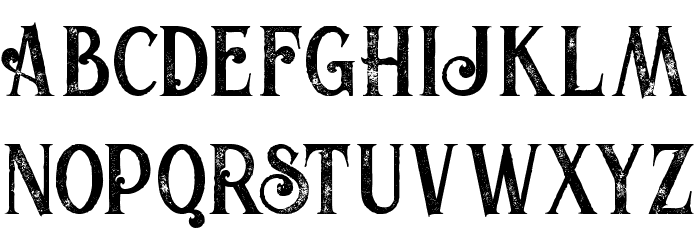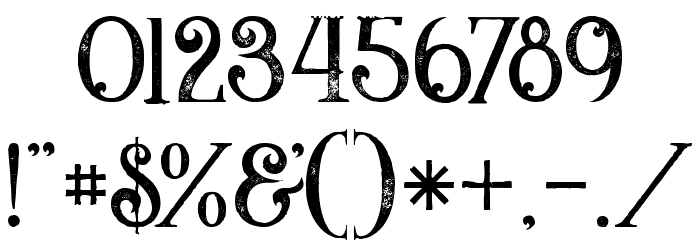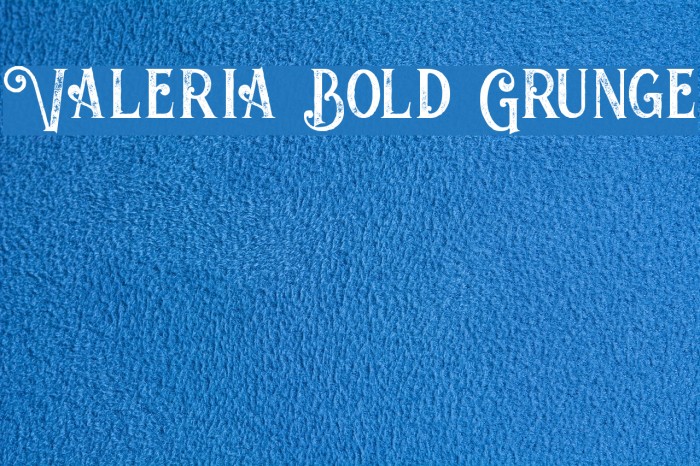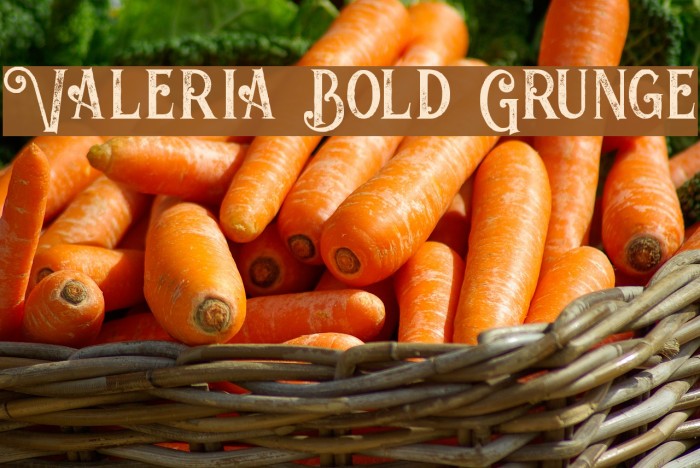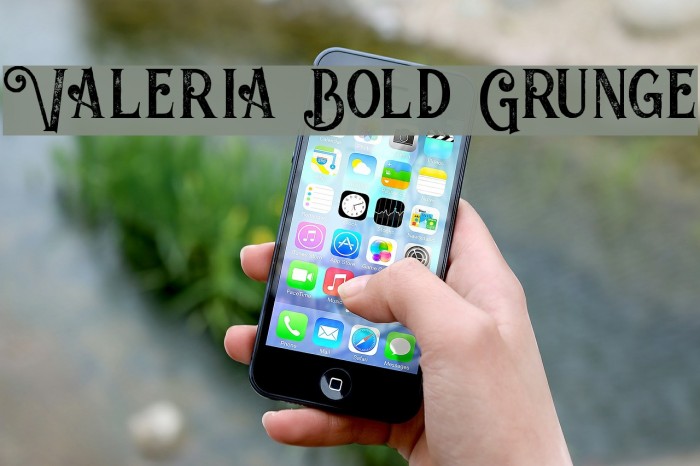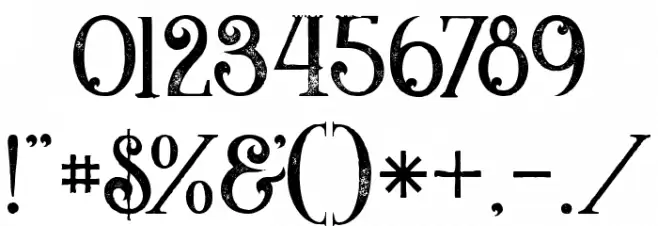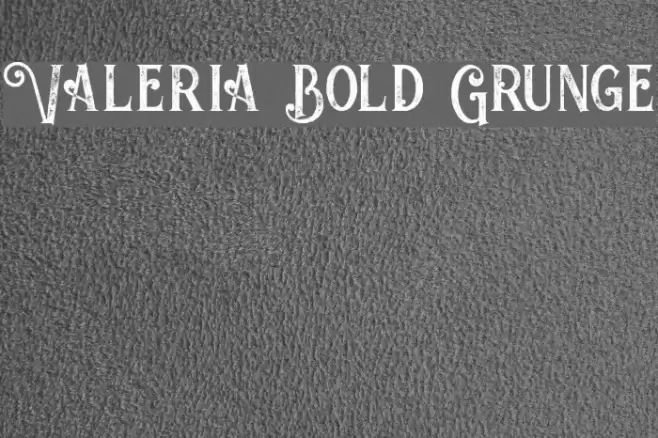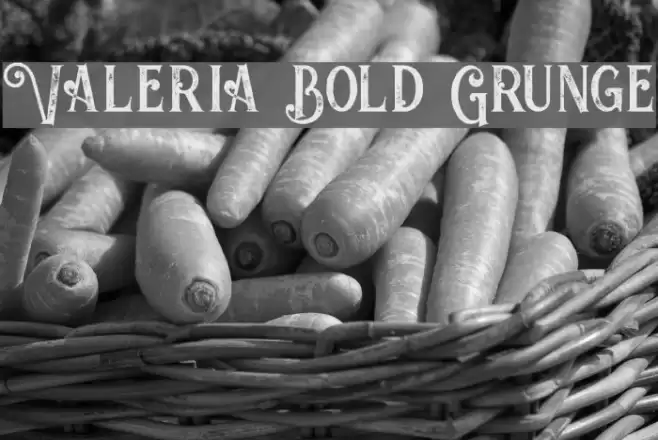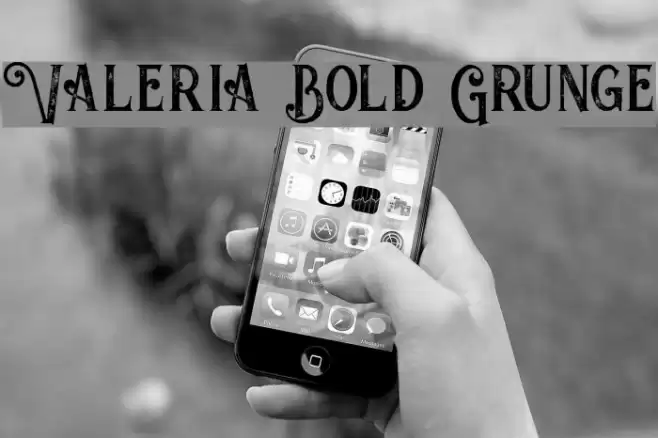
Valeria Bold Grunge Font
This font features a bold and grunge-inspired aesthetic, characterized by its distressed texture and decorative swirls. The uppercase letters exhibit a strong presence with intricate curls and flourishes, adding a vintage charm. The lowercase letters maintain the same distressed style, ensuring consistency throughout. Numbers and special characters are equally bold and textured, making them stand out. The overall design is eye-catching and suitable for projects that require a bold statement with a touch of nostalgia.
A bold, grunge-inspired font with decorative swirls and a distressed texture.
- Proposed Projects: Ideal for vintage-themed posters, album covers, branding for edgy products, or any design that requires a bold and artistic touch.
- Overall Style: Vintage, Decorative